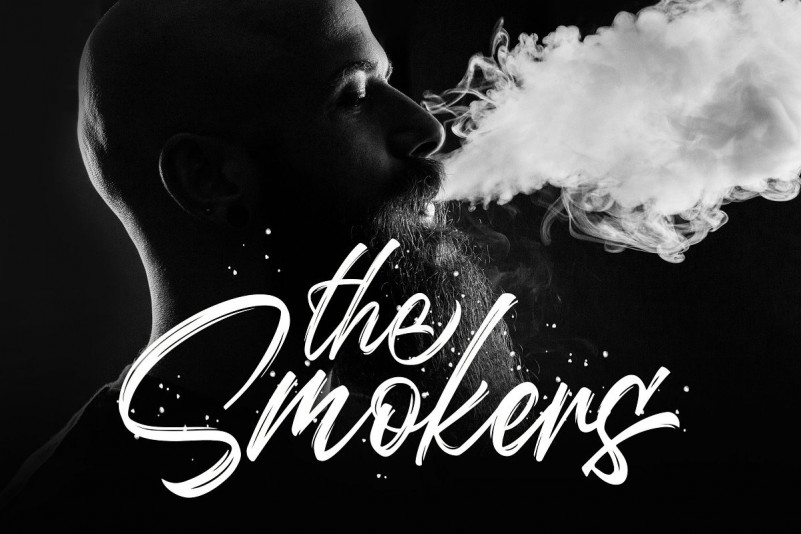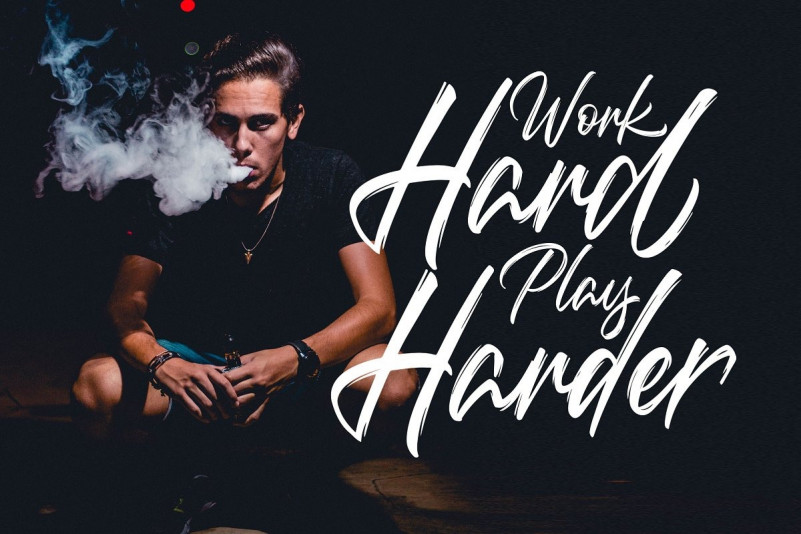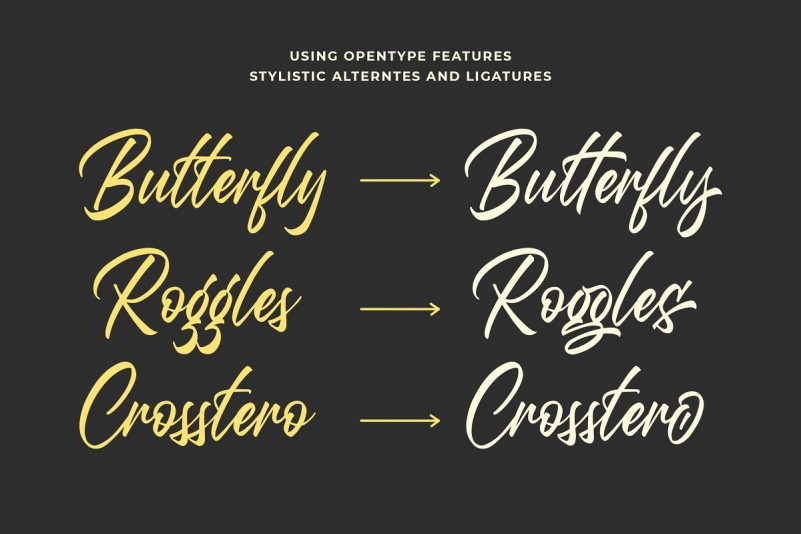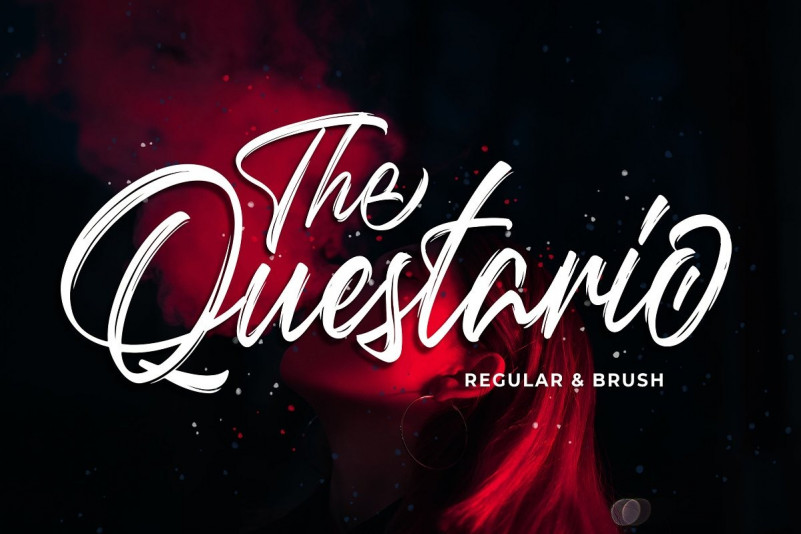
Questario Brush Style Font
Thank you for looking Questario Font. This is new brush typeface, a handwritten font with a unique and strong character crafted with high-definition paint textures. Questario Brush Style inspired by Brush calligraphy font, it’s stunning and enchanting, but also incredibly modern. This versatile script font has a wide range of applications ranging from greeting cards to headlines and is guaranteed to add a romantic feel to your next craft.